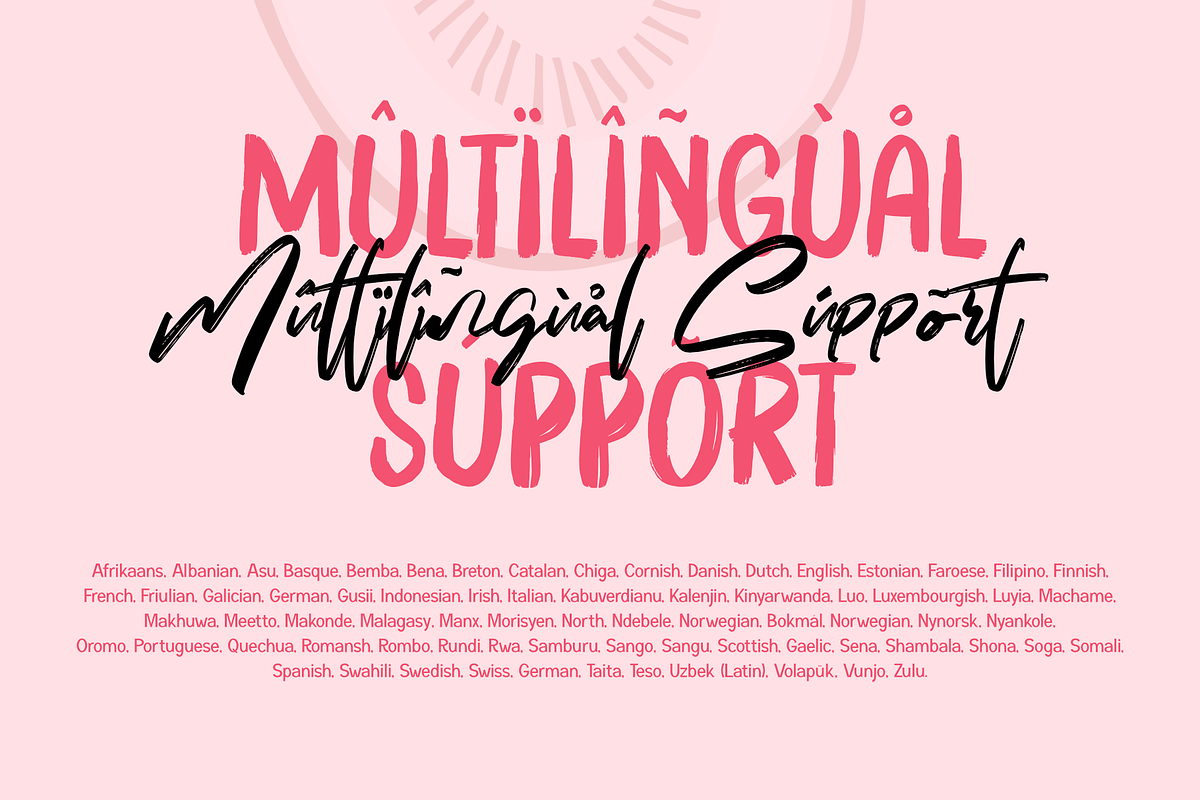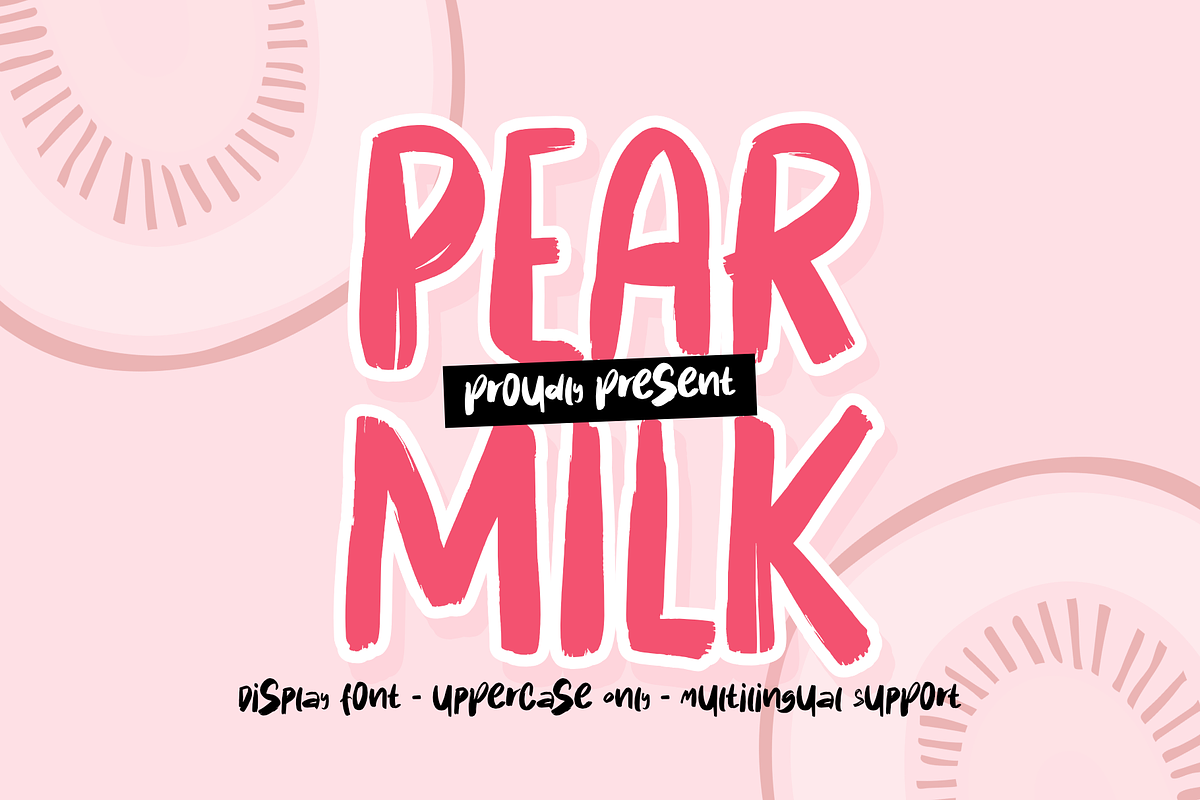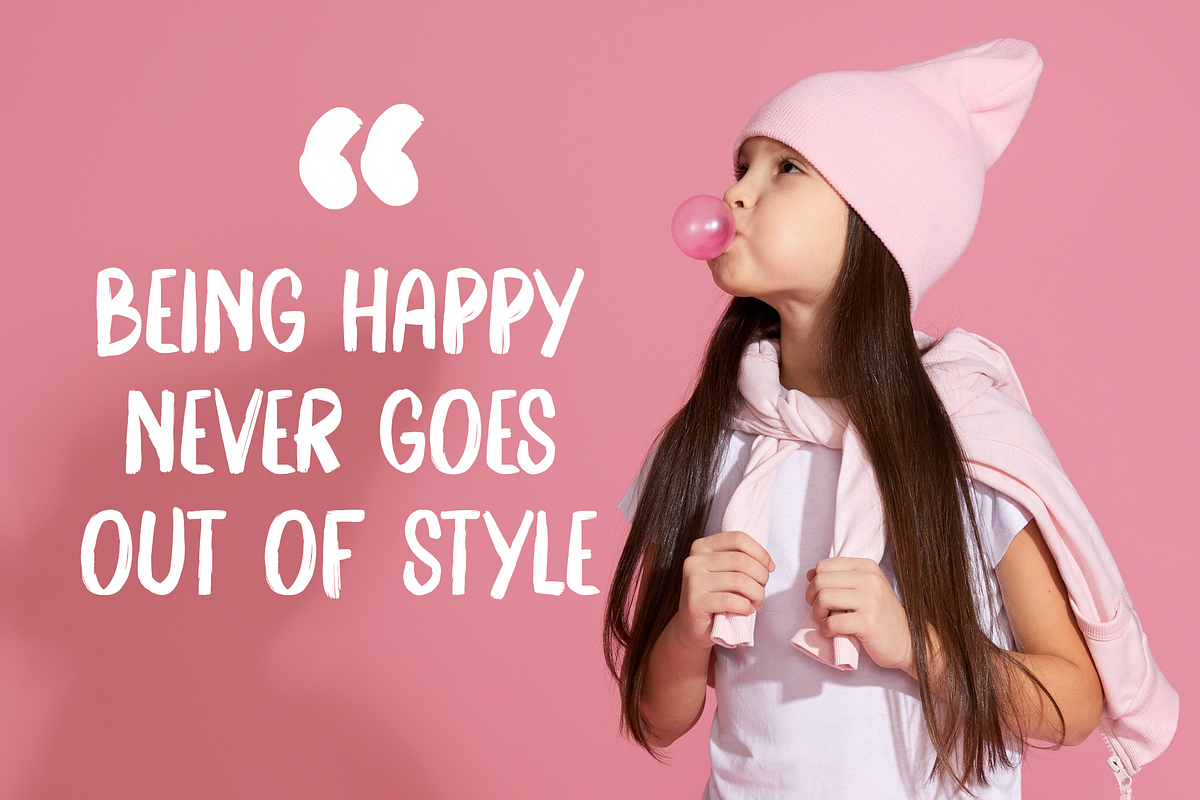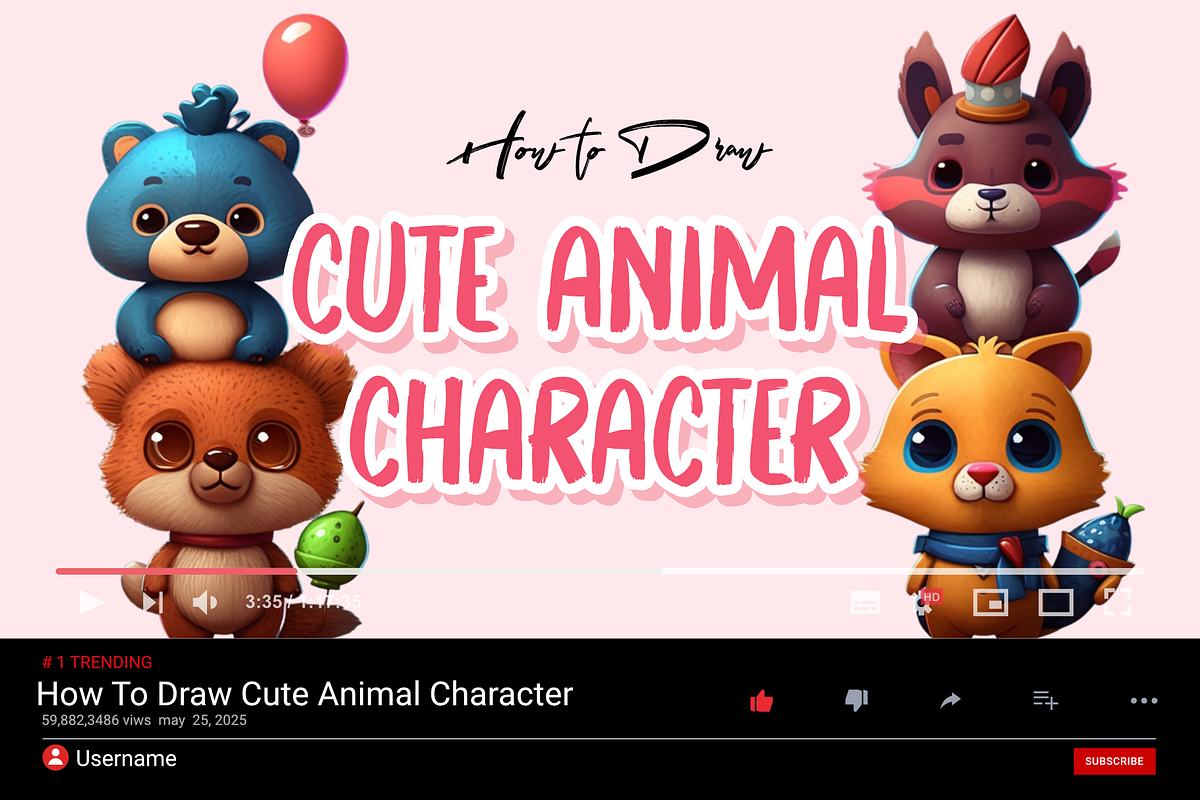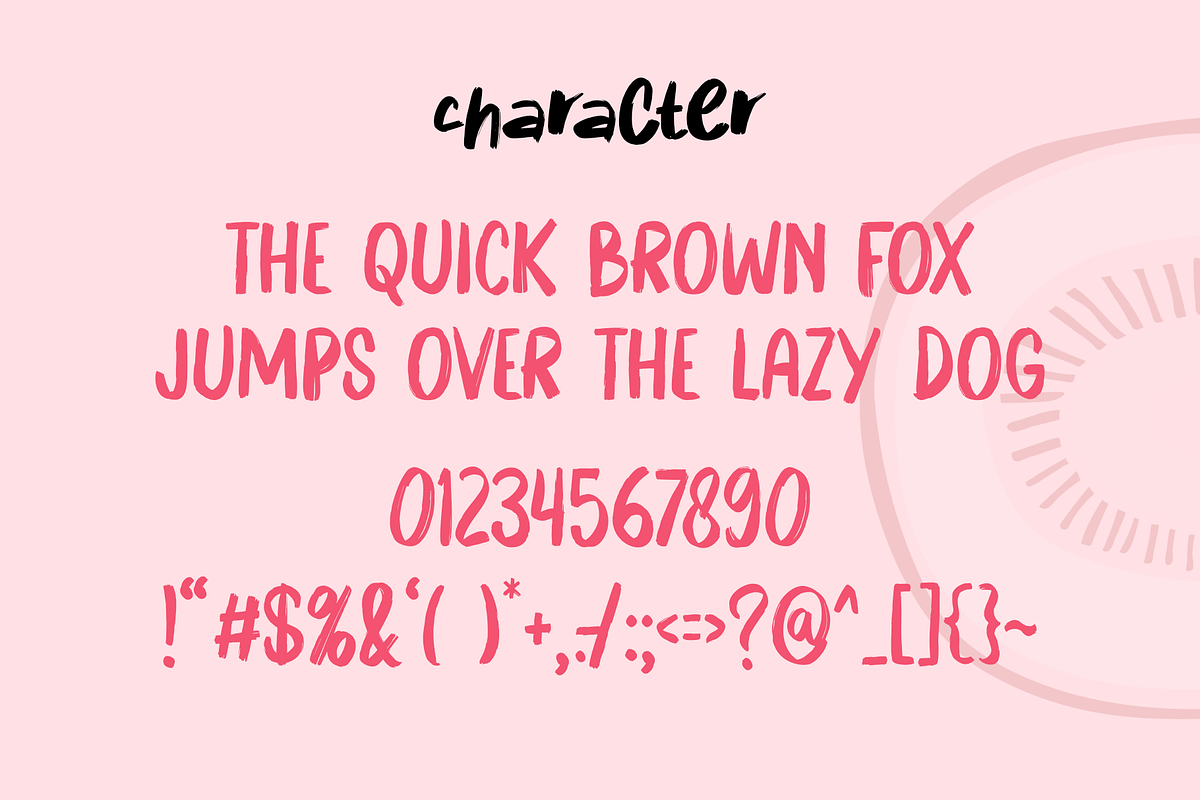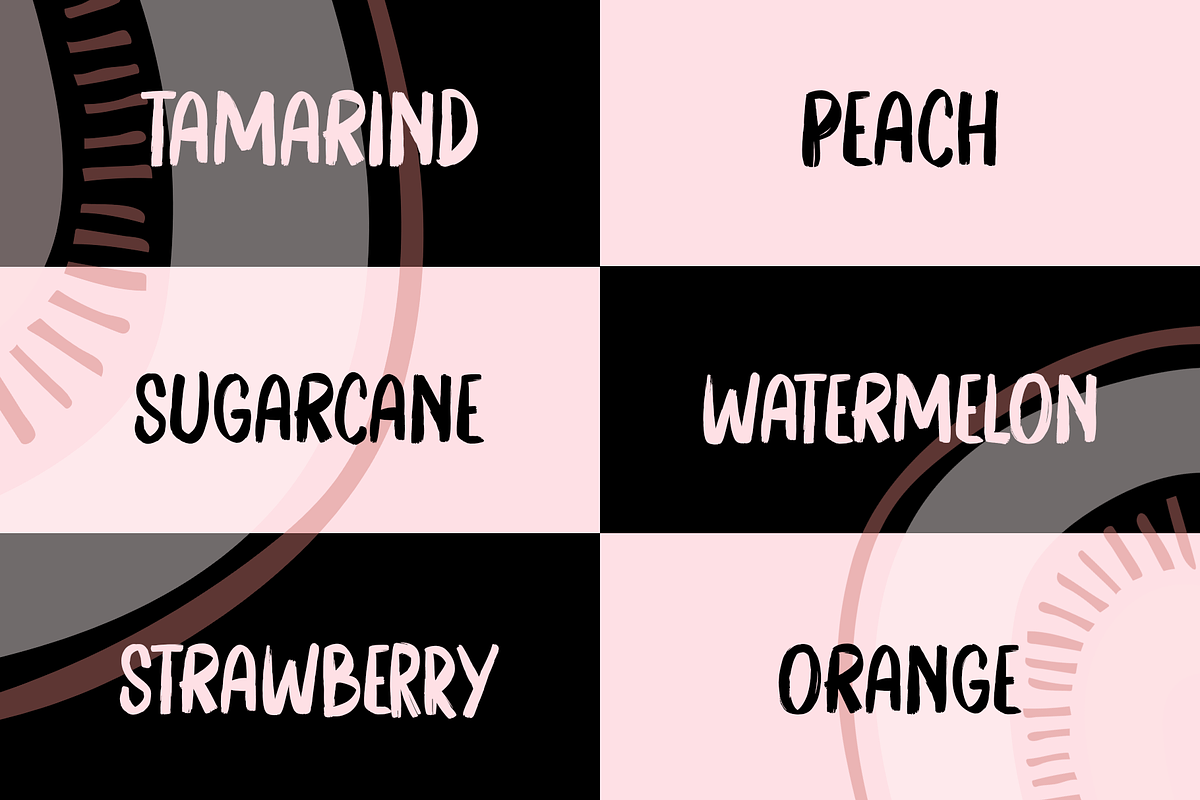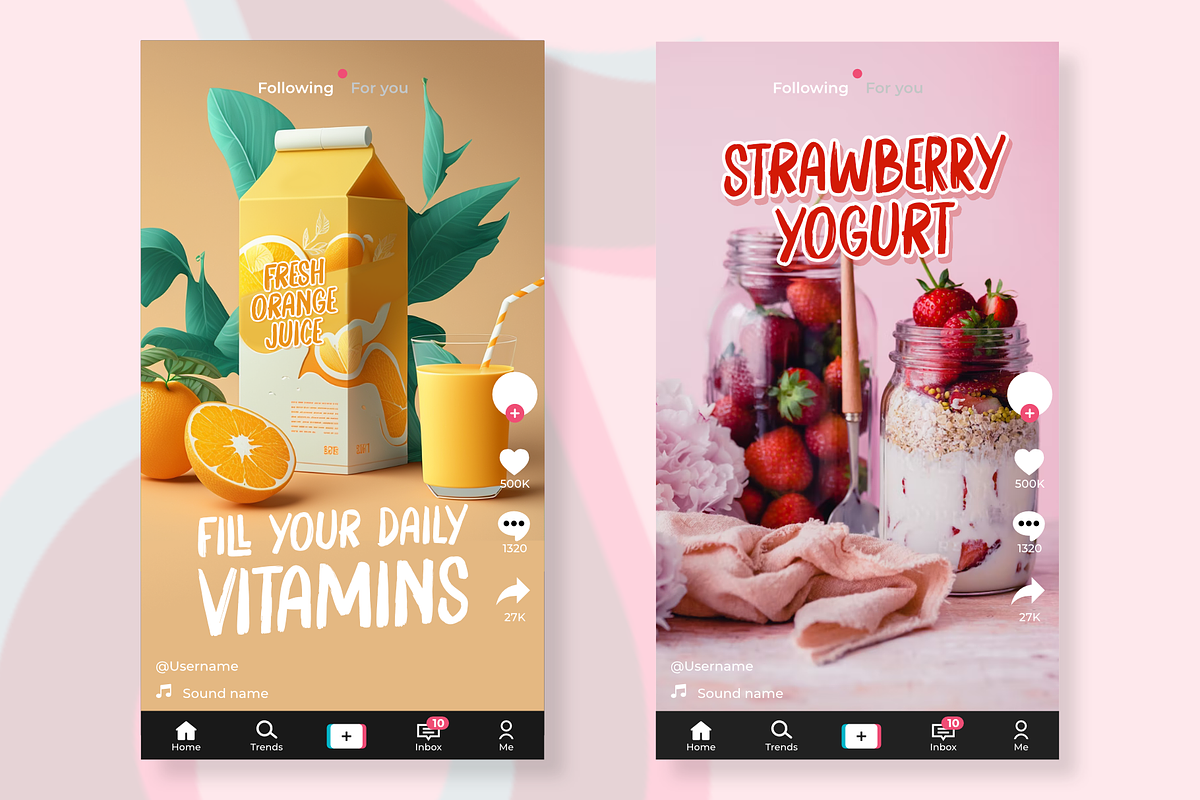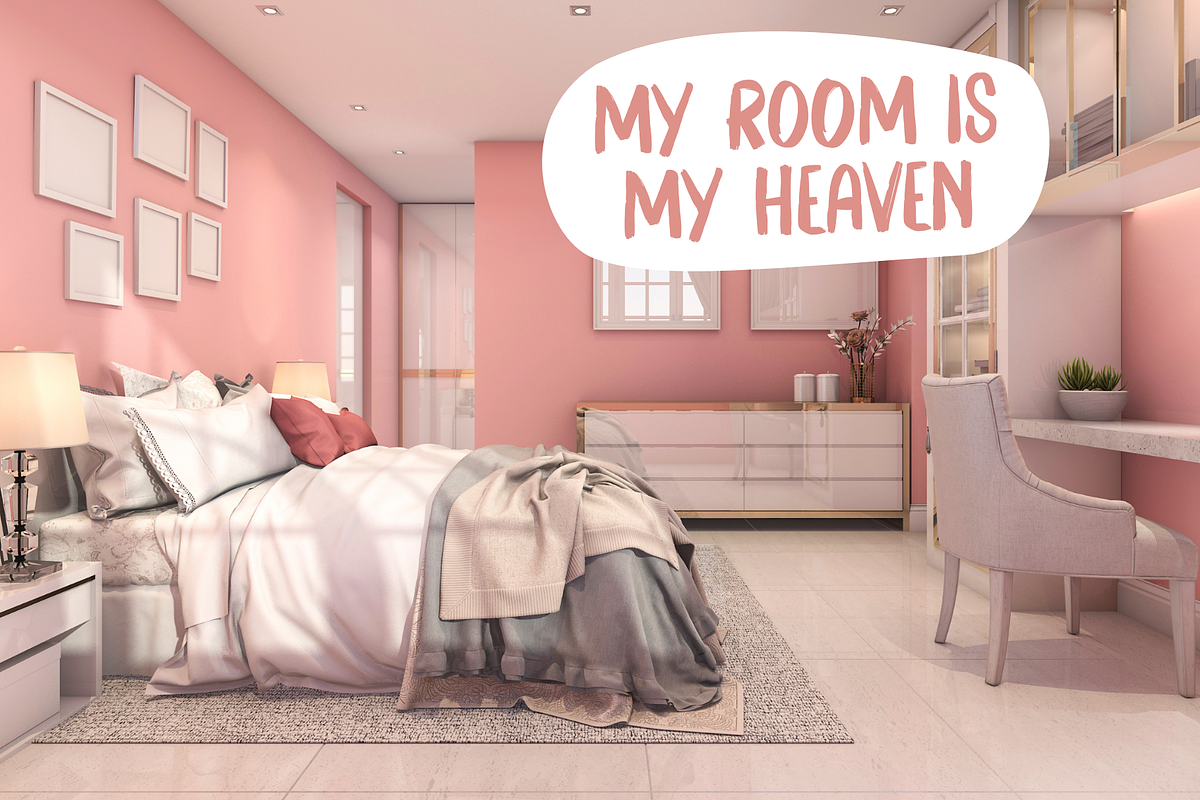
Pear Milk
Pear Milk is a unique font that's perfect for all your craft projects!
This font is perfect for home designs, Ads Designs, Youtube covers, Tiktok, svg designs, home decor, branding, blogs, logos, quotes, and more!
- Uppercase Only
- Multilingual Accent
This Font Support Language: Afrikaans, Albanian, Asu, Basque, Bemba, Bena, Breton, Catalan, Chiga, Cornish, Danish, Dutch, English, Estonian, Faroese, Filipino, Finnish, French, Friulian, Galician, German, Gusii, Indonesian, Irish, Italian, Kabuverdianu, Kalenjin, Kinyarwanda, Luo, Luxembourg, Luyia, Machame, Makhuwa, Meetto, Makonde, Malagasy, Manx, Morisyen, North, Ndebele, Norway, Bokmål, Norwegian, Nynorsk, Nyankole, Oromo, Portuguese, Quechua, Romansh, Rombo, Rundi, Rwa, Samburu, Sango, Sangu, Scottish, Gaelic, Sena, Shambala, Shona, Soga, Somali, Spanish, Swahili, Swedish, Swiss, German, Taita, Teso, Uzbek (Latin), Volapük, Vunjo, Zulu.